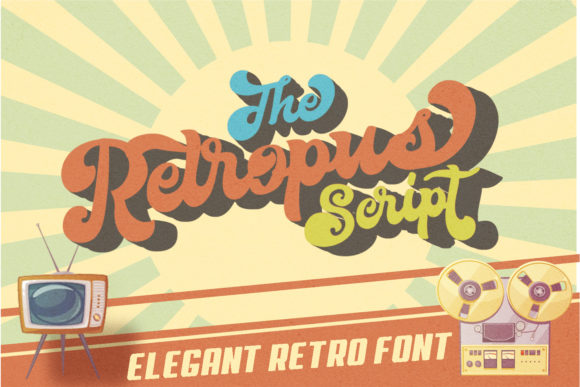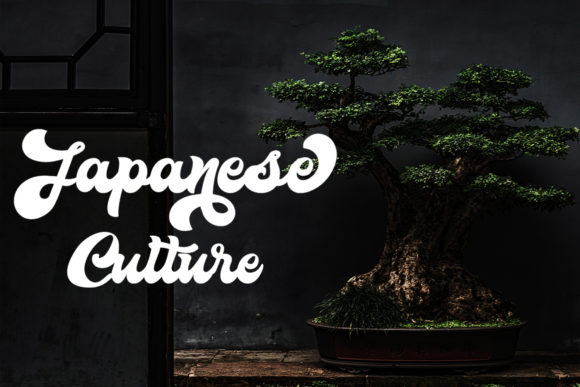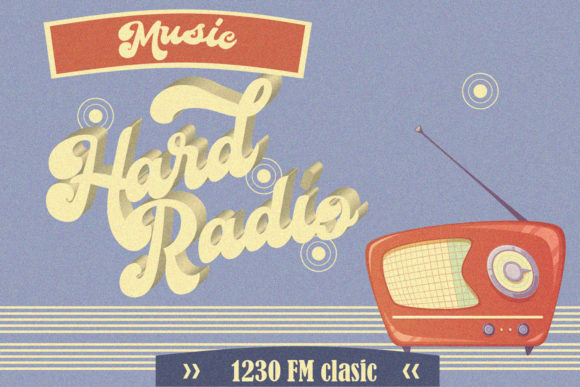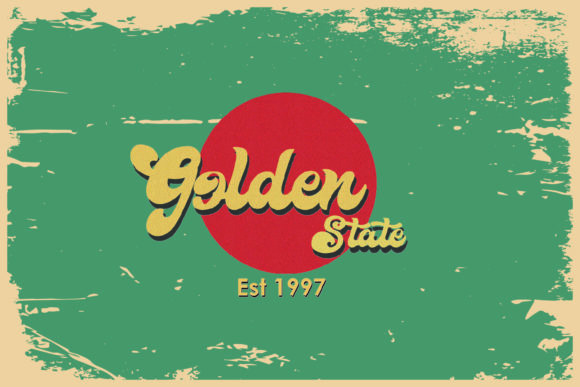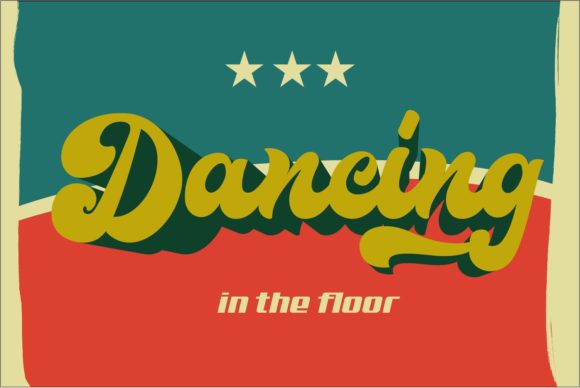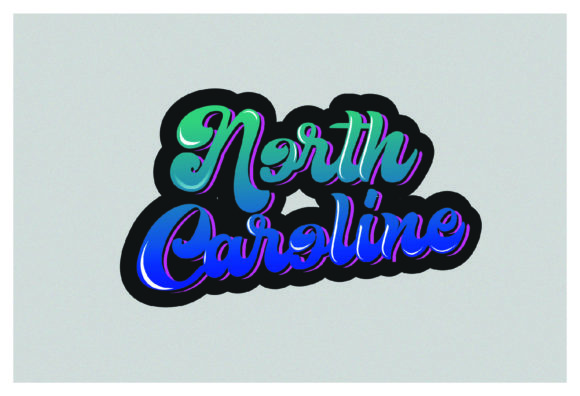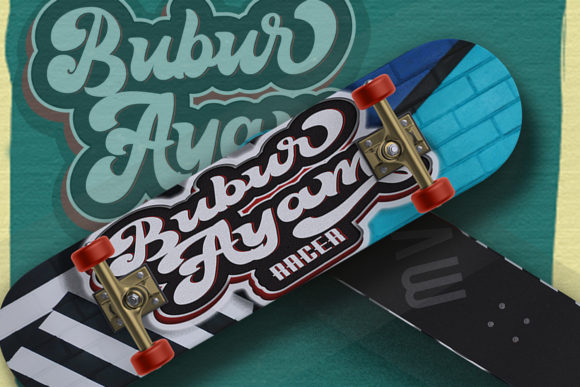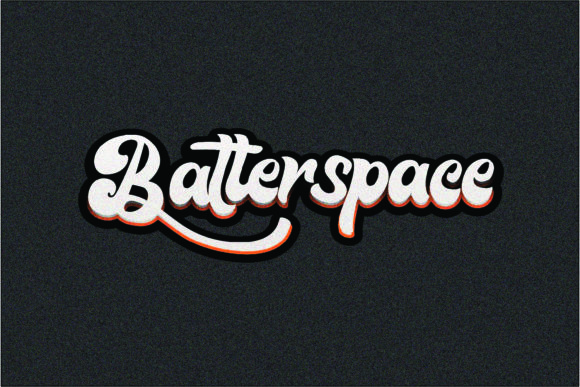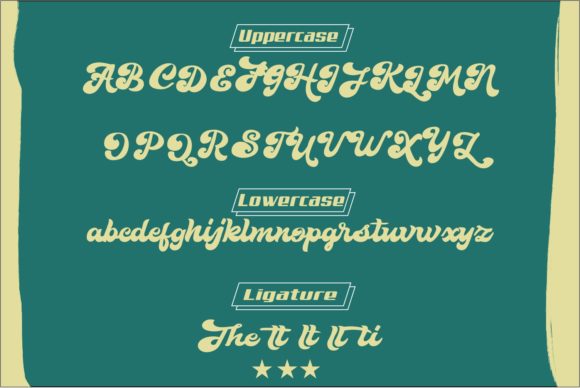
Retropus Script Font
About Retropus Script Font
Retropus Script is inspired by a combination of retro and hand-lettering styles. It provides unique personality that is ideal for logos, product packaging, headers, posters, merchandise, and much more.